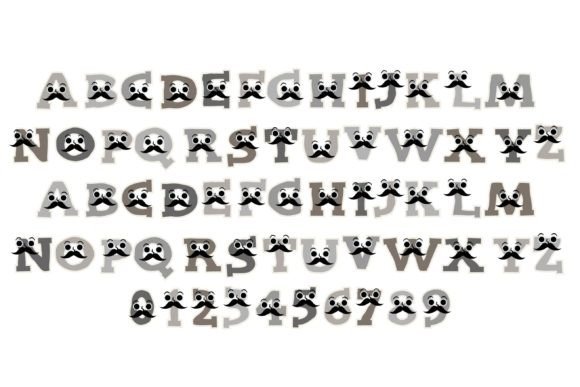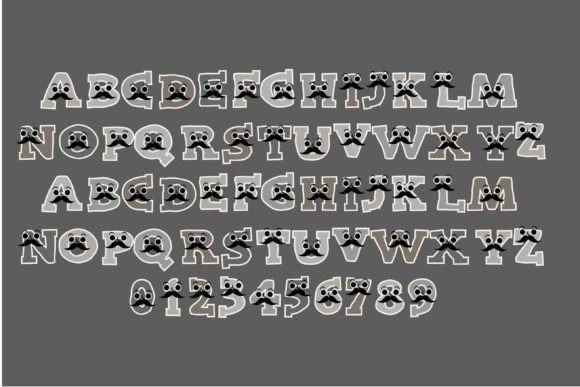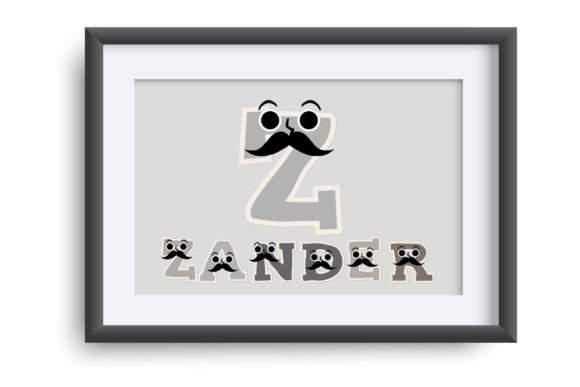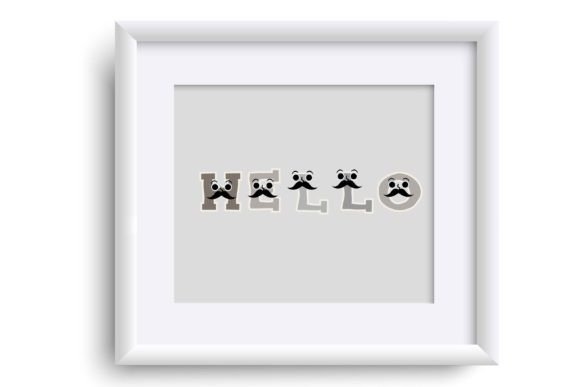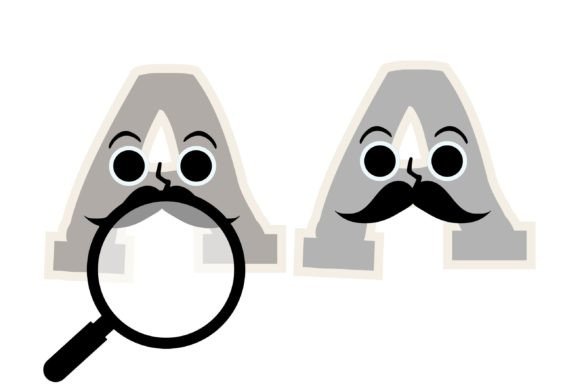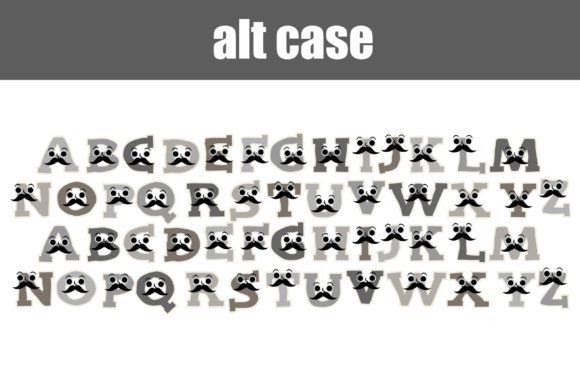
Introducing Furry Father Font: A Fun and Colorful Addition to Your Design Arsenal
Are you tired of using the same old boring fonts in your designs? Look no further than Furry Father Font, a full-color font that is sure to add a touch of whimsy and personality to your projects. This unique font features blocky serif lettering with eyes and mustaches, giving it a playful and endearing quality that is sure to delight designers and crafters alike.
What Makes Furry Father Font So Special?
Furry Father Font is a true standout in the world of typography. Not only does it feature a distinctive blocky serif design, but it also comes with a range of exciting features that set it apart from other fonts. For example, the font includes an alt version that can be accessed through your system’s character map, which contains additional colors for all the letters. This means that you can use the font to create a wide range of different designs and effects, from bold and bright to subtle and pastel.
Design Possibilities: What Can You Create with Furry Father Font?
So, what can you create with Furry Father Font? The possibilities are endless! This fun and colorful font is perfect for a wide range of design projects, from invitations and greeting cards to posters and social media graphics. You could use it to create a bold and eye-catching logo, or to add a touch of personality to your website or blog. The font is also great for crafters, who can use it to create custom vinyl decals, iron-on designs, and more.
Tips and Tricks for Getting the Most Out of Furry Father Font
To get the most out of Furry Father Font, here are a few tips and tricks to keep in mind. First, experiment with different colors and combinations to find the look that works best for your project. You could also try using the font in combination with other design elements, such as shapes or textures, to create a more complex and interesting design. Finally, don’t be afraid to get creative and try out new and unusual design ideas. With Furry Father Font, the possibilities are endless!
In conclusion, Furry Father Font is a fun and colorful addition to any design arsenal. With its unique blocky serif design, range of colors, and ease of use, this font is perfect for designers and crafters looking to add a touch of personality to their projects. Whether you’re creating invitations, posters, or custom vinyl decals, Furry Father Font is sure to delight. So why not give it a try today and see what amazing designs you can create?
- Full-color font with blocky serif lettering and eyes and mustaches
- Alt version with additional colors for all letters